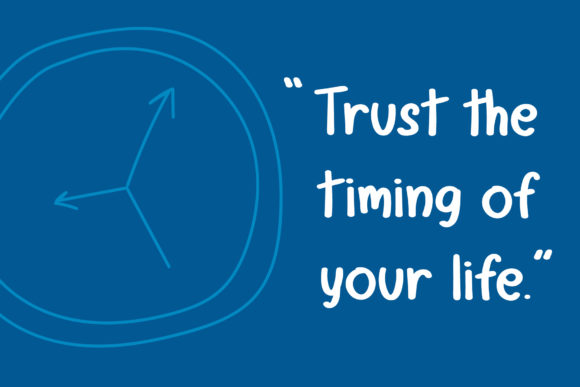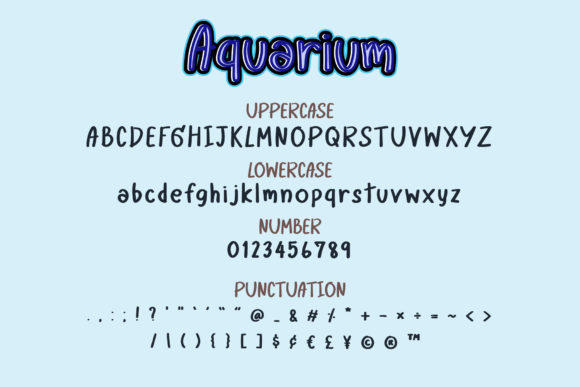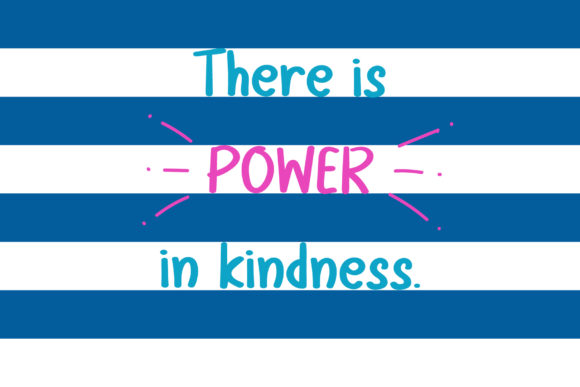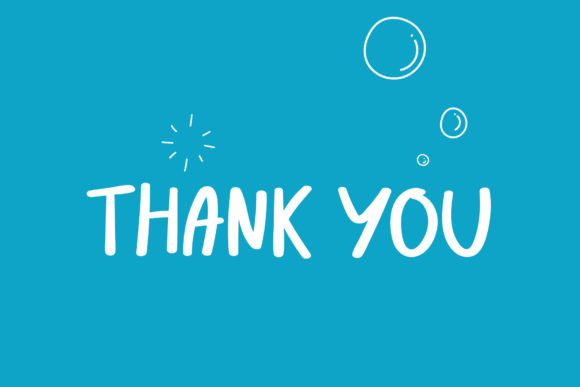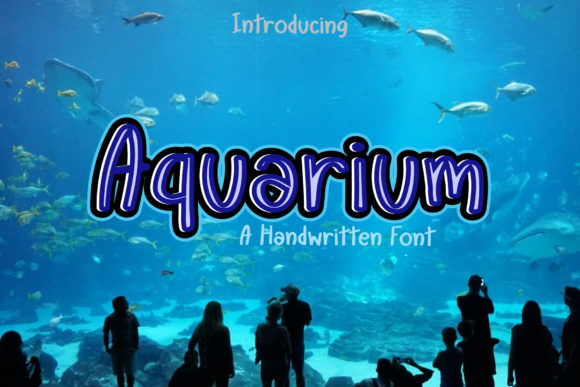
Aquarium Font: Adding a Splash of Fun and Quirkiness to Your Designs
Are you tired of using the same old fonts in your designs? Do you want to add a touch of whimsy and personality to your creative projects? Look no further than the Aquarium Font, a delightful handwritten font that embodies fun, quirkiness, and authenticity. In this article, we’ll dive into the world of Aquarium Font and explore how it can help you create standout designs that capture the imagination of your audience.
The Charm of Aquarium Font
Aquarium Font is a one-of-a-kind, handwritten font that is sure to make a splash in your designs. Its enchanting and playful style is perfect for creatives who want to add a dash of personality to their work. Whether you’re designing a logo, creating a social media graphic, or crafting a website, Aquarium Font is the perfect choice for anyone looking to inject some fun and quirkiness into their design.
What Makes Aquarium Font So Special?
So, what sets Aquarium Font apart from other fonts out there? Here are just a few features that make it so special:
- Handwritten style: Aquarium Font is a genuine handwritten font, created with love and care to give your designs a personal touch.
- Unique character set: Each letter, number, and symbol in Aquarium Font has been carefully crafted to ensure that your designs stand out from the crowd.
- Fun and quirky: Aquarium Font is the perfect choice for designers who want to add a bit of whimsy and playfulness to their work.
- Authentic feel: With Aquarium Font, you can give your designs an authentic, homemade feel that’s sure to resonate with your audience.
How to Use Aquarium Font in Your Designs
Now that we’ve explored the charm of Aquarium Font, let’s talk about how to use it in your designs. Here are a few ideas to get you started:
- Logos and branding: Aquarium Font is perfect for creating fun and quirky logos that will help your brand stand out.
- Social media graphics: Use Aquarium Font to create eye-catching social media graphics that will grab the attention of your followers.
- Web design: Add a touch of personality to your website with Aquarium Font, perfect for headings, titles, and other design elements.
- Crafting and DIY projects: Aquarium Font is also perfect for crafters and DIY enthusiasts who want to add a personal touch to their projects.
Tips for Getting the Most Out of Aquarium Font
To get the most out of Aquarium Font, here are a few tips to keep in mind:
- Experiment with colors: Aquarium Font looks great in a variety of colors, so don’t be afraid to experiment and find the perfect hue for your design.
- Mix and match: Combine Aquarium Font with other fonts and design elements to create a unique and eye-catching design.
- Keep it simple: Don’t overcomplicate your design – Aquarium Font is perfect for simple, yet effective designs that get your message across.
In conclusion, Aquarium Font is a unique and enchanting handwritten font that embodies fun, quirkiness, and authenticity. With its playful style and authentic feel, it’s the perfect choice for designers and crafters who want to add a personal touch to their work. Whether you’re creating a logo, social media graphic, or crafting project, Aquarium Font is sure to make a splash and help your design stand out from the crowd.
Get Ready to Dive into the World of Aquarium Font
So, what are you waiting for? Dive into the world of Aquarium Font today and discover how this delightful handwritten font can transform your designs. With its fun and quirky style, Aquarium Font is sure to inspire your creativity and help you create designs that are truly one-of-a-kind.